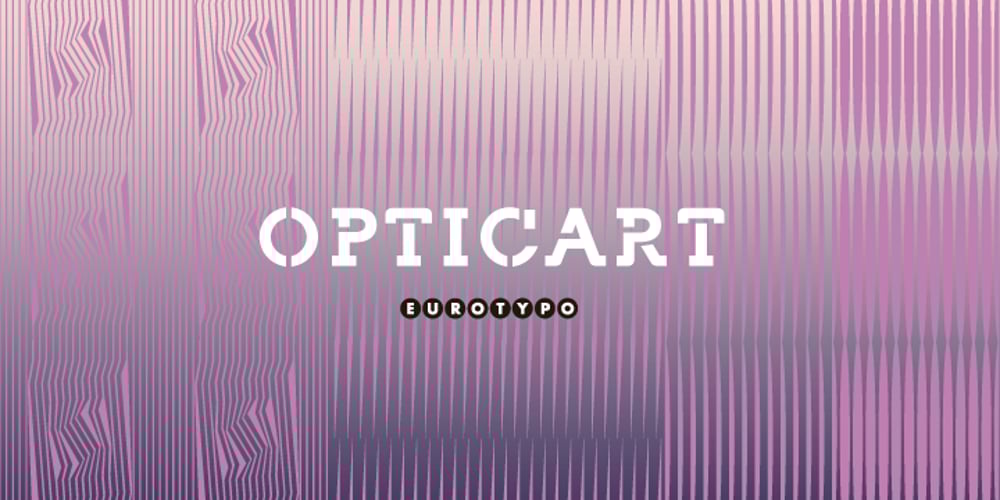
Optic Art
Optic Art font
Optic Art Font Family was designed by Juan A. Lavalle and published by Eurotypo. Optic Art contains 1 styles and family package options. Opticart is a family of glyphs inspired by Op Art (Optical Art). They include 133 models — each letter is a subfamily that can combine overlapping (A, a, a.salt and A.swsh) and thus generate more than 365 glyphs, or thousands if we combine different letters or symbols. Opticart is so easy to use, user does not need guidance, just repeat typing [aaaa, bbbb, etc.] or do overlap them and repeat [(a + A) (a + A), etc.] You may overlay and combine shapes with colors as you please.